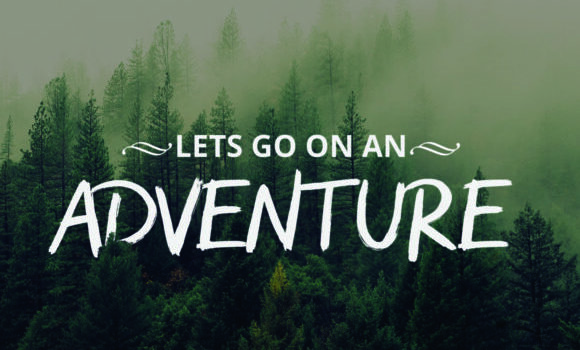
rockwild
Rockwild Font – Free Download Introduction to Rockwild Font The Rockwild is a hand-drawn brush font with rough and bold letters. 📸 Preview Gallery 6 images 📌 Product Name Rockwild Font 👤 Author Hustletter 📂 Category Explore ⬇️ Download Rockwild